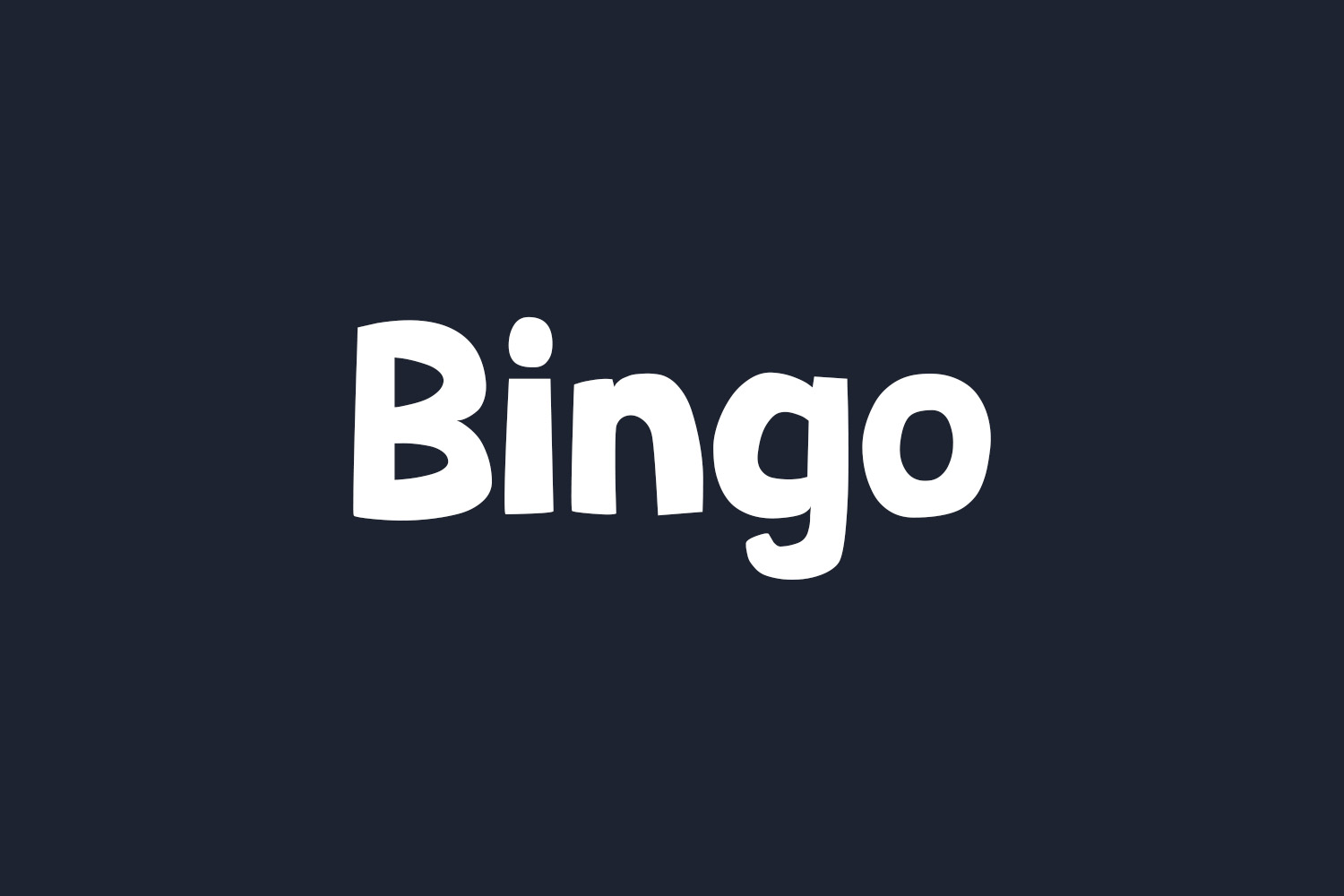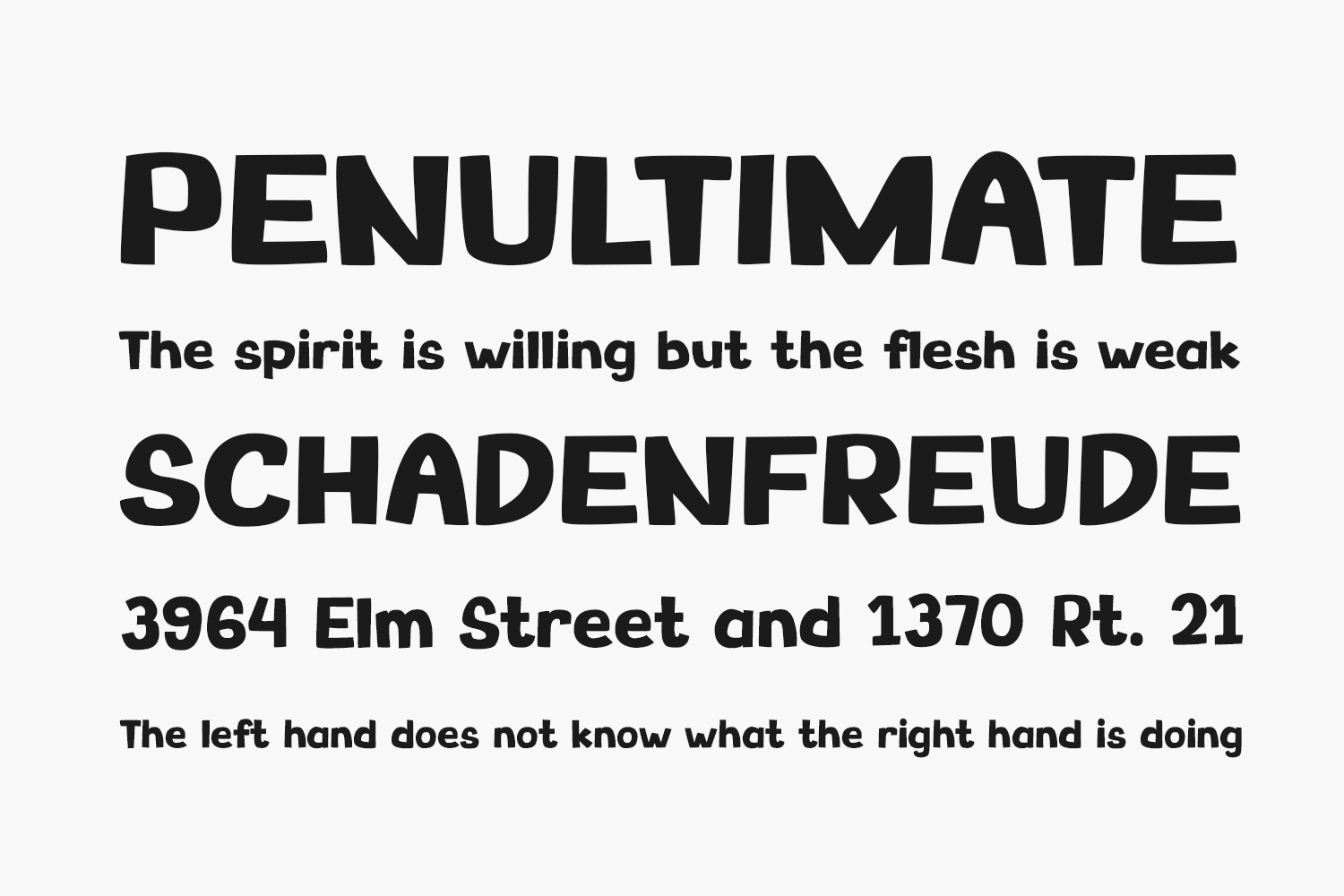
Bingo Free Font is designed to grab attention and elicit a smile with its bold and playful shapes. It’s a perfect fit for various applications, including pop culture books, online games, teen event posters, school supplies typography, movie titles, YouTube covers, thumbnails, social media page covers, and more. Bingo Free Font is free for personal use only. Please purchase the full version for commercial use.